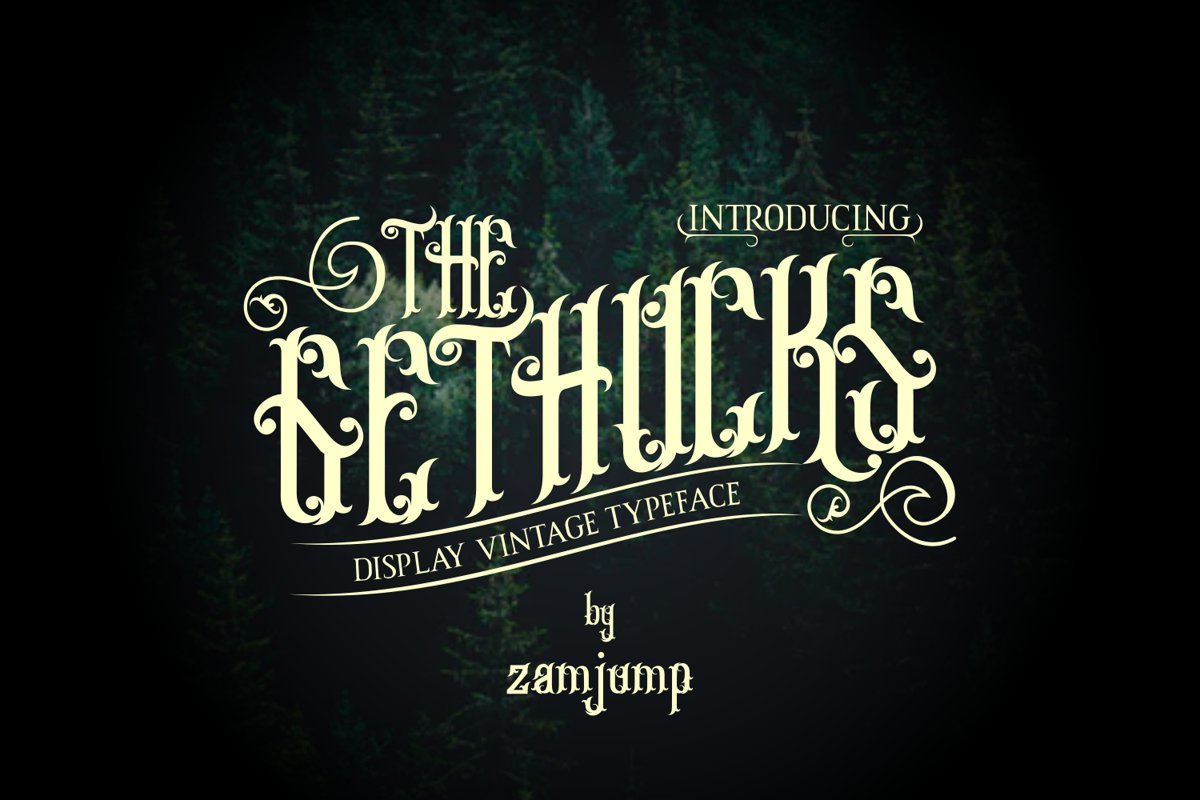
The Gethucks
Gethucks
The Gethucks
is a vintage display font, with an elegant classic character that is suitable for various purposes such as posters, tagline logos, tattoos, business names and so on.
By using this font, what is presented is elegant and classic with its vintage character.
Numbers
Punctuation
Symbols
multilingual support